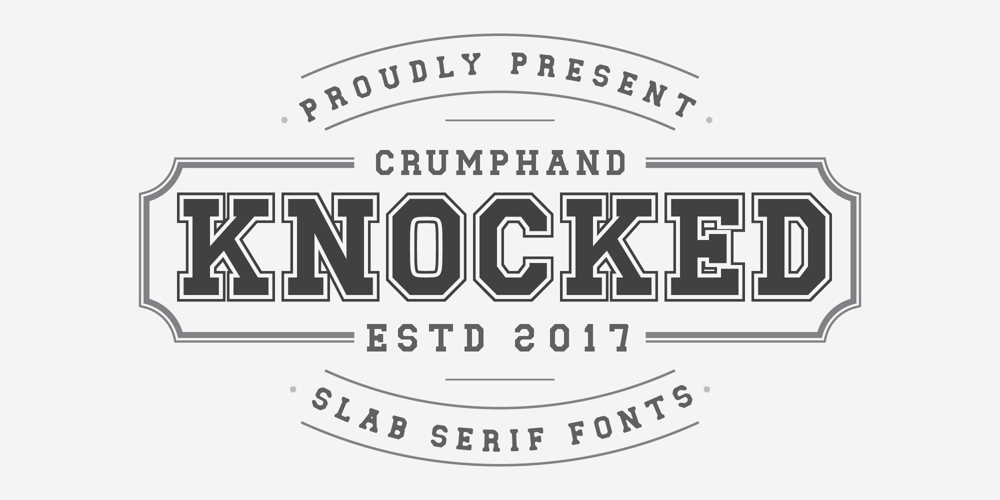
Knocked Font Family was designed by Stefie Justprince and published by Crumphand. Knocked contains 3 styles and family package options. Introducing a new Slab Serif fonts “Knocked”Knocked fonts is an inspiration to College fonts, Varsity fonts, Athletic fonts and Retro fonts.this Knocked fonts is pretty good and good for experimenting with your design.comes with 3 styles; Regular, Rough and Stripes.